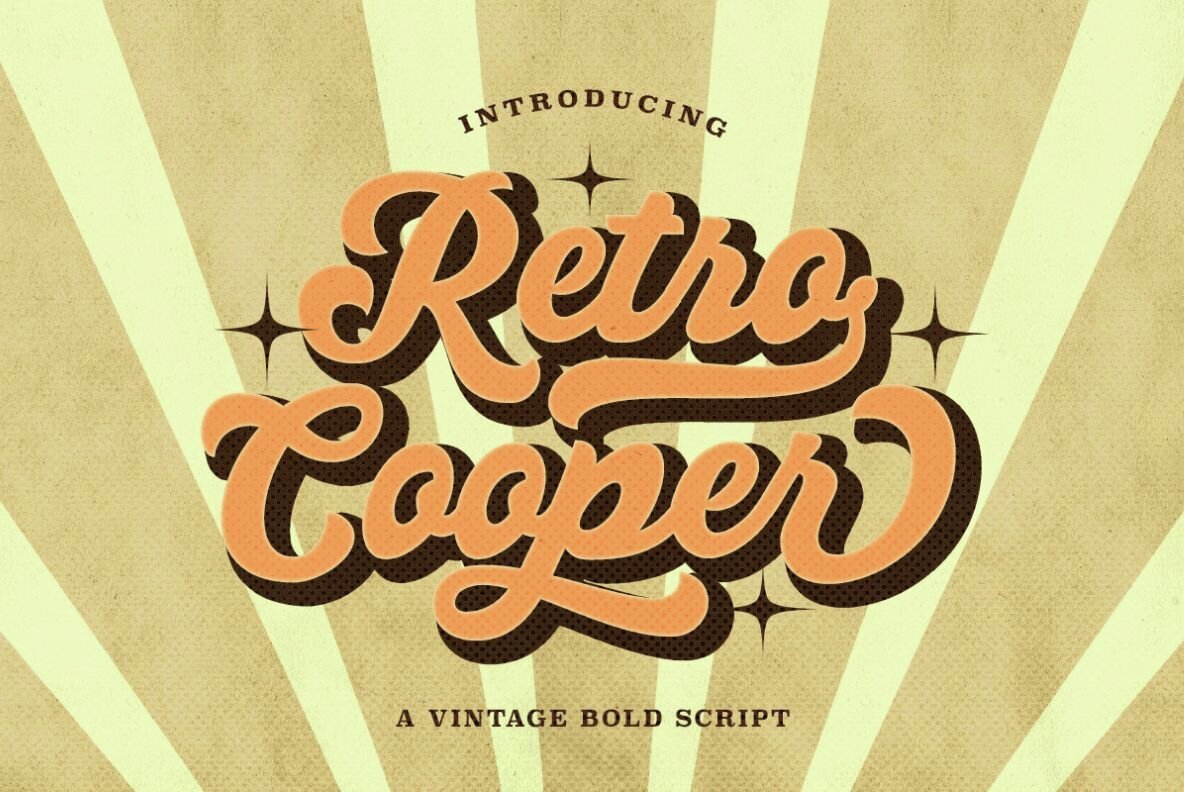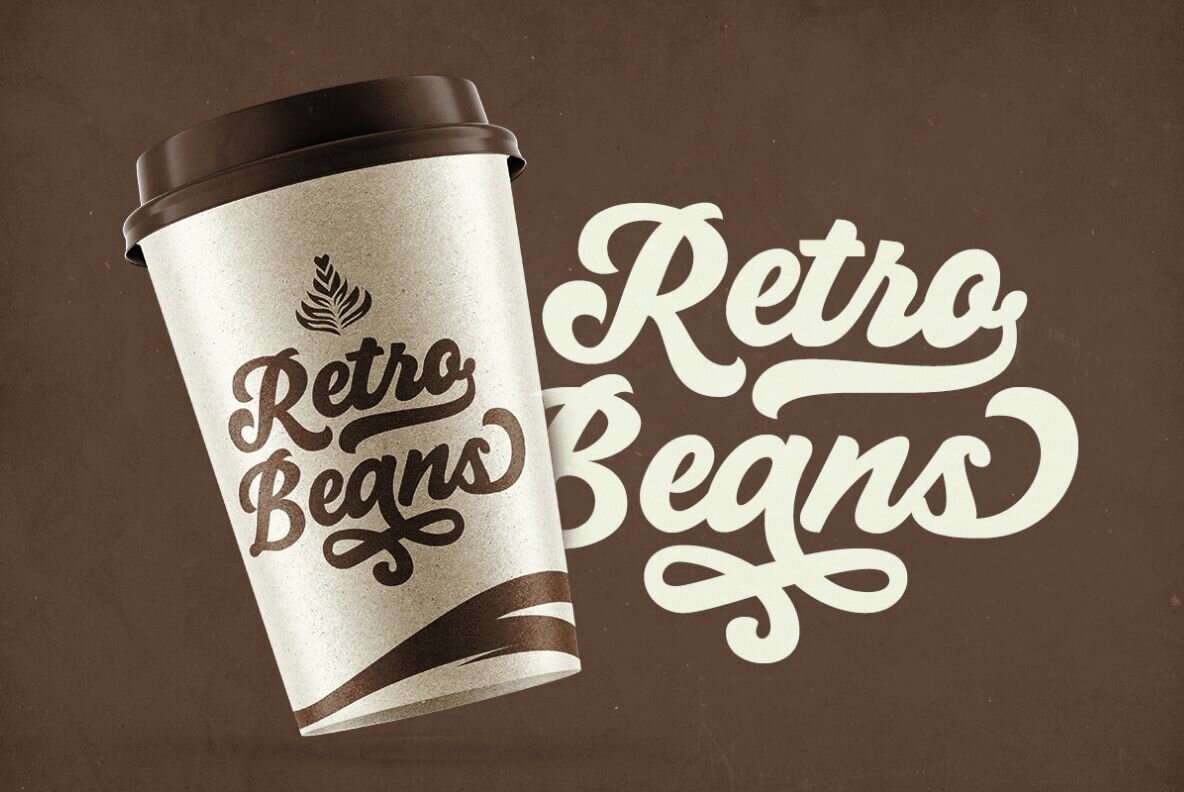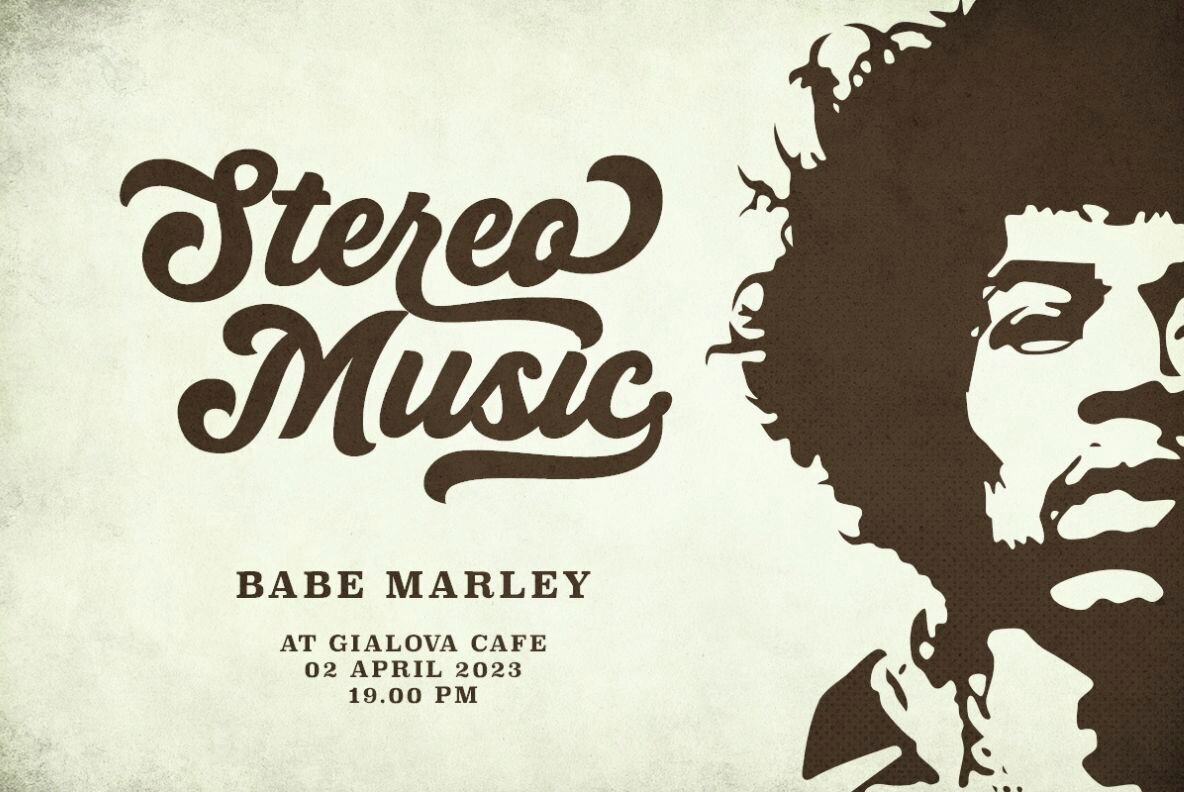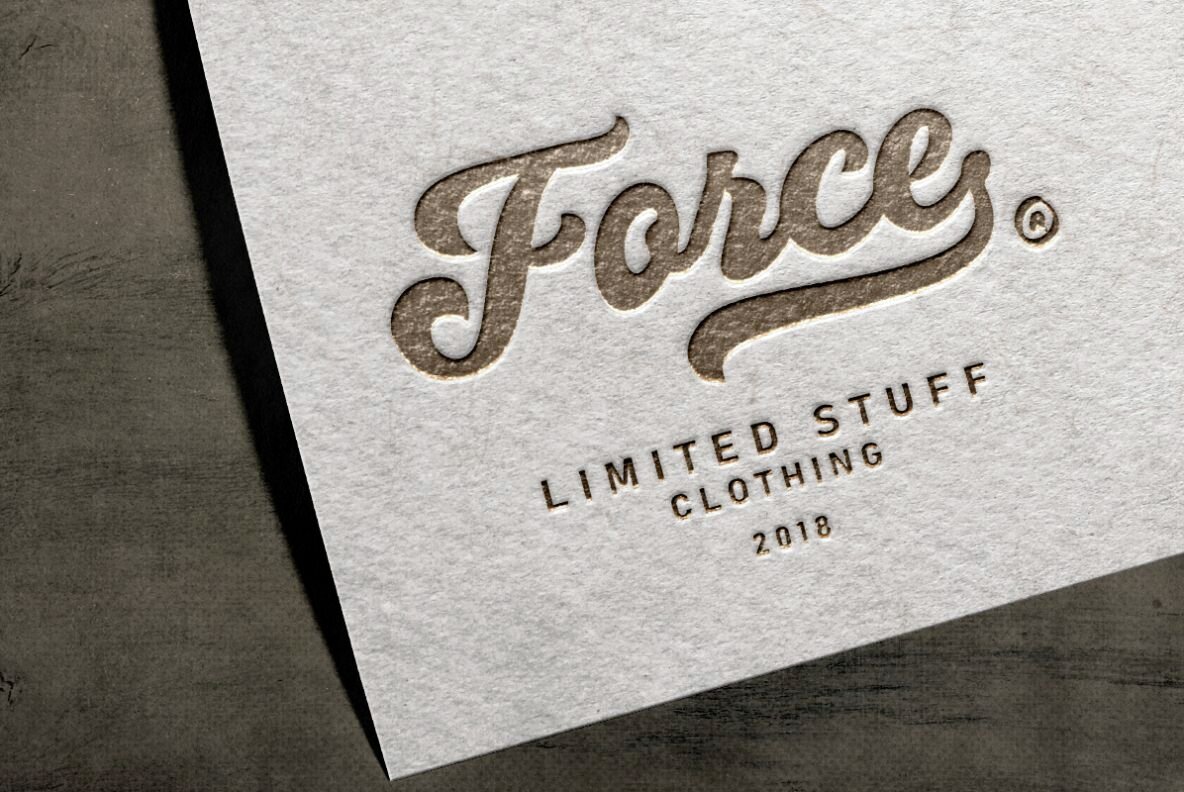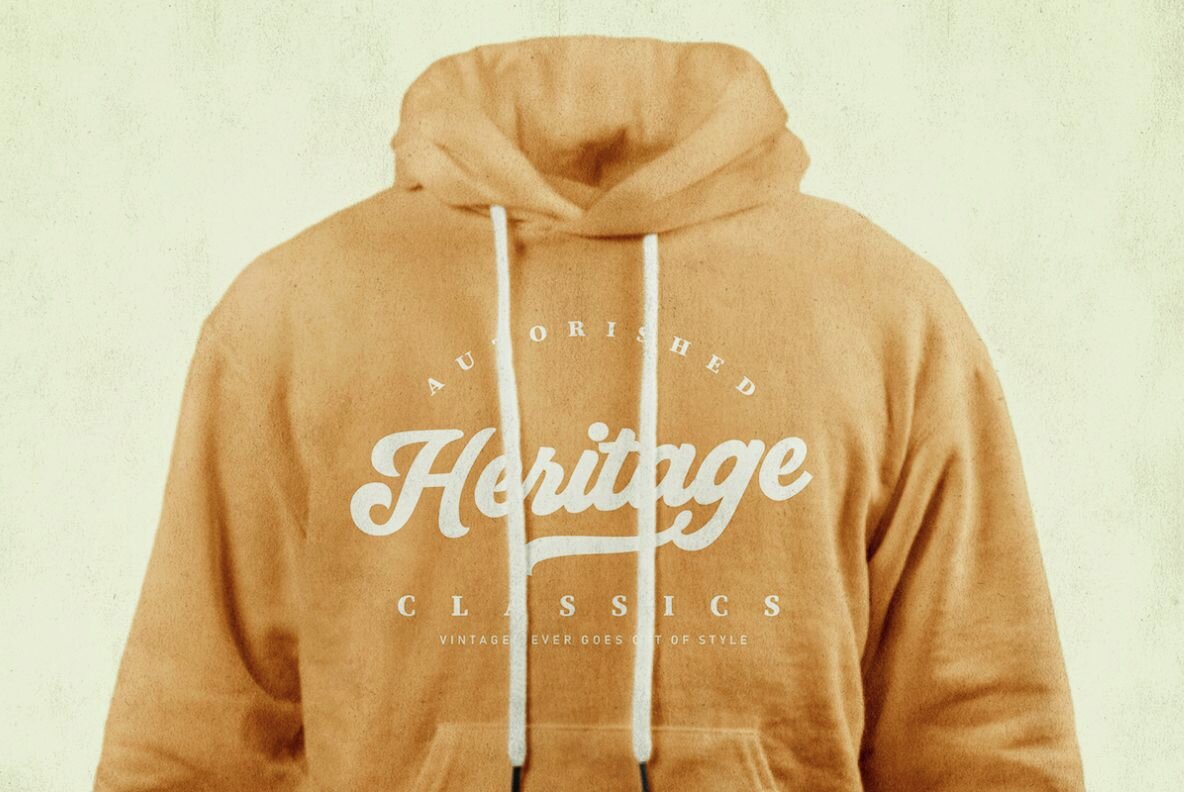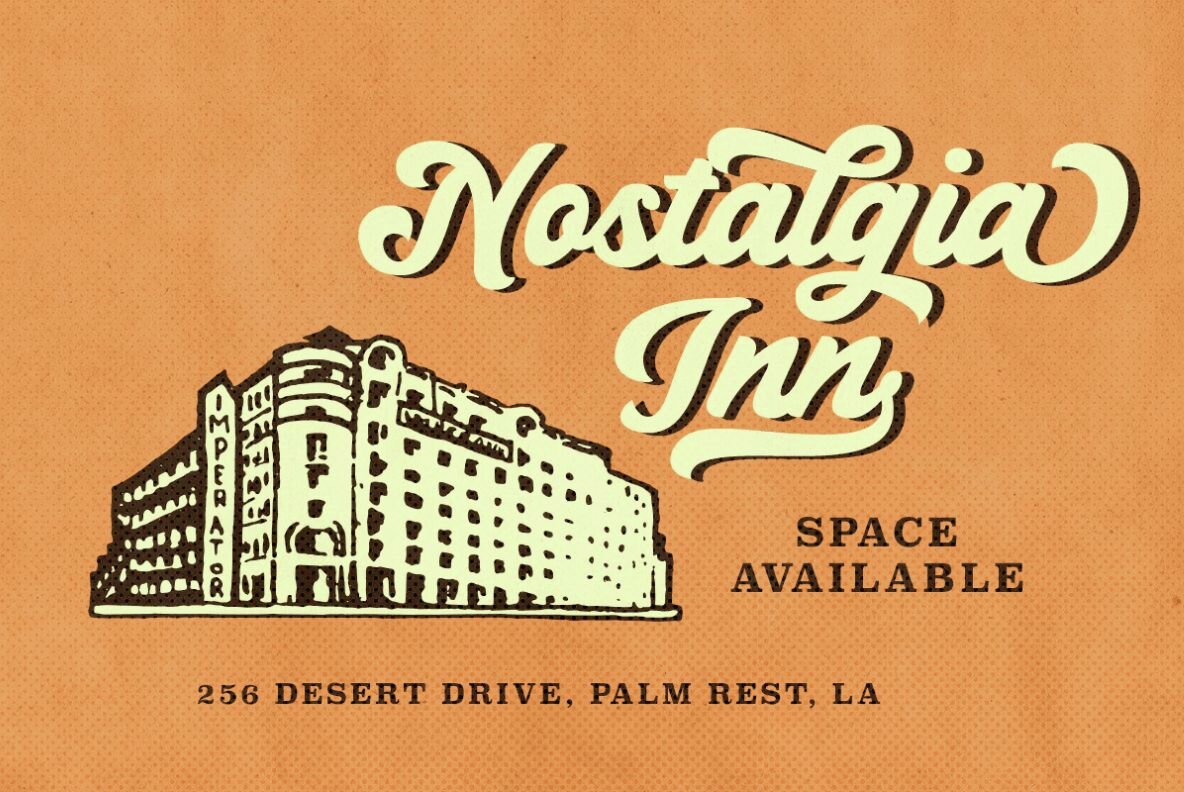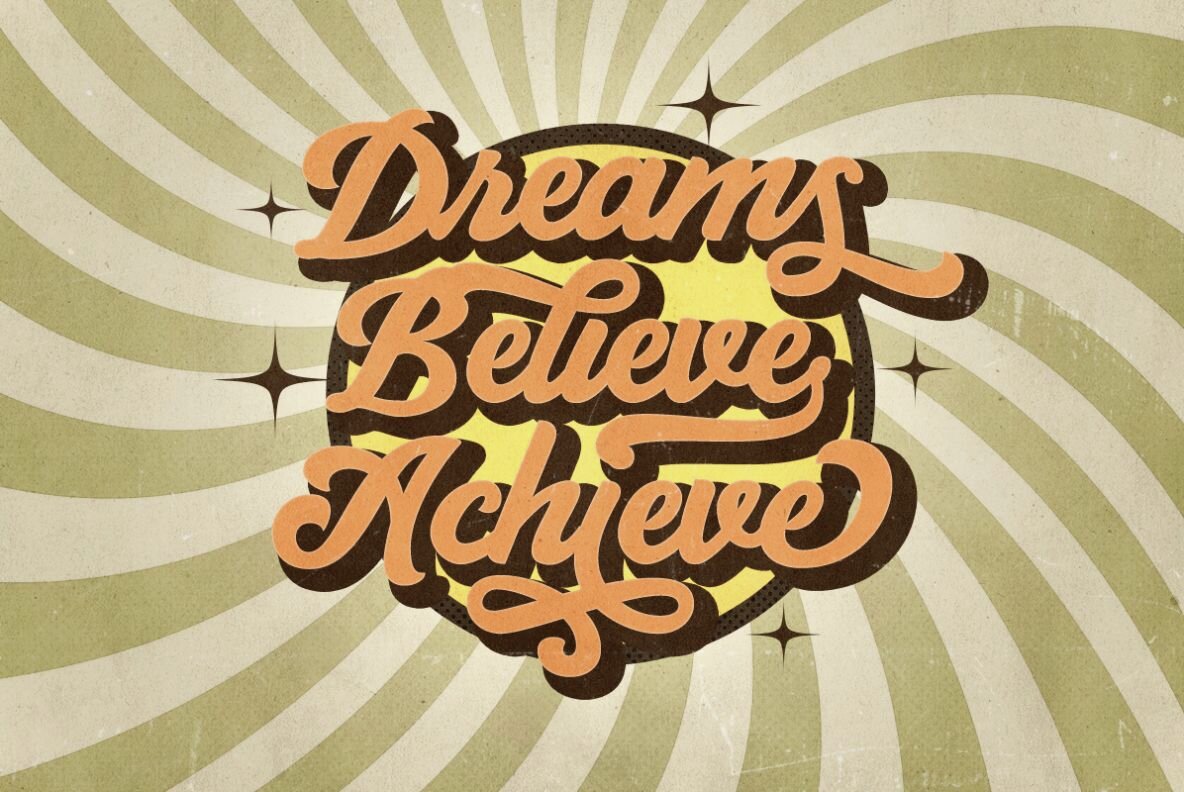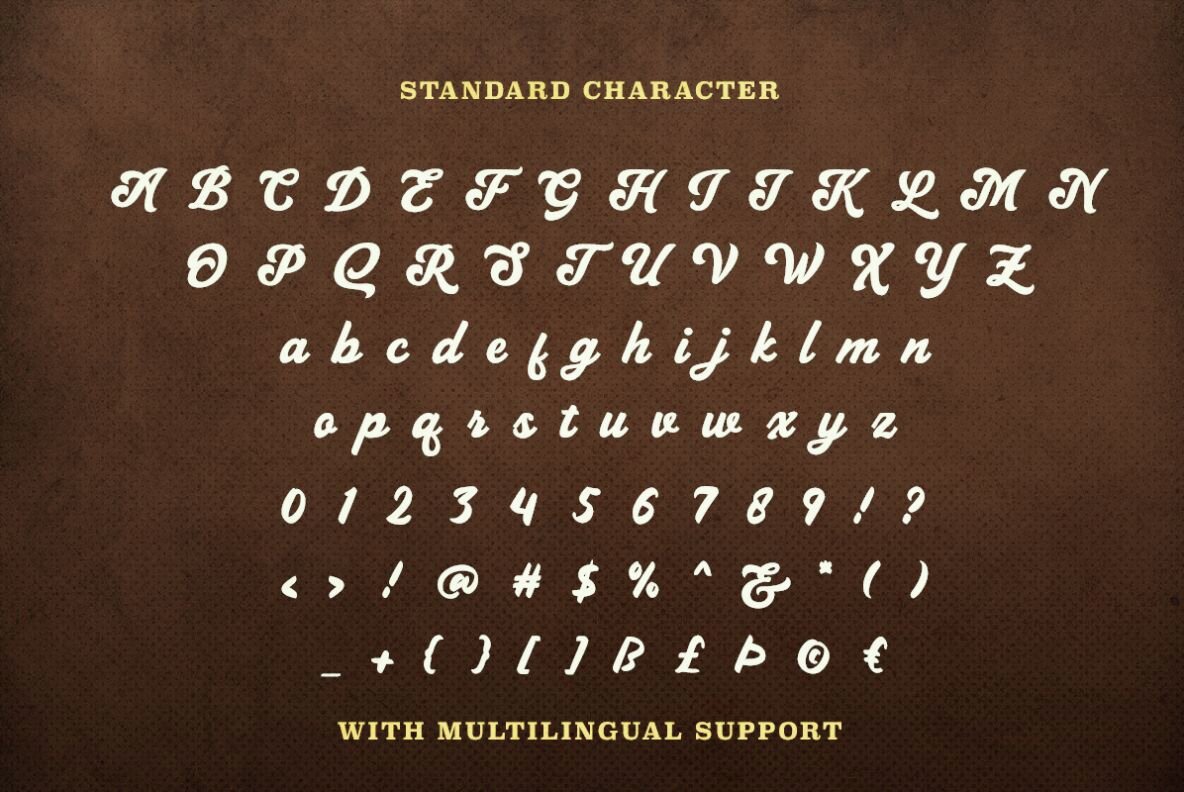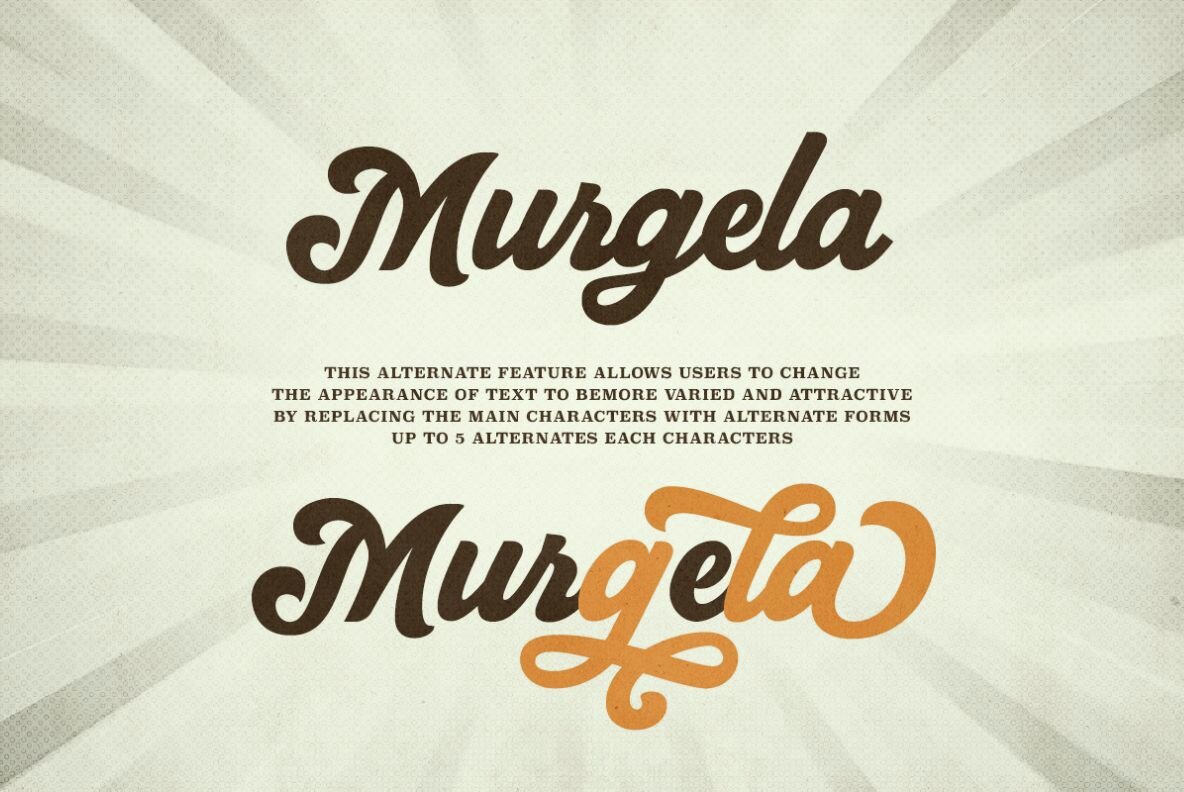
Retro Cooper Font
Retro Cooper Regular
Retro Cooper is a vintage-inspired, bold script font characterized by its stylish alternates and ligatures. Perfect for retro-themed posters and events, its classic style evokes a nostalgic charm. Each character offers up to five alternates, providing designers with flexibility to craft bold and eye-catching designs.
The font supports multiple languages, making it versatile for a global audience. Retro Cooper is ideal for those seeking to add a classic and old-school vibe to their projects, enhancing their work with its unique and timeless aesthetic.